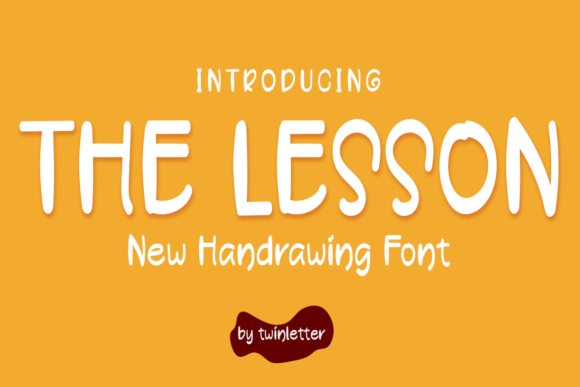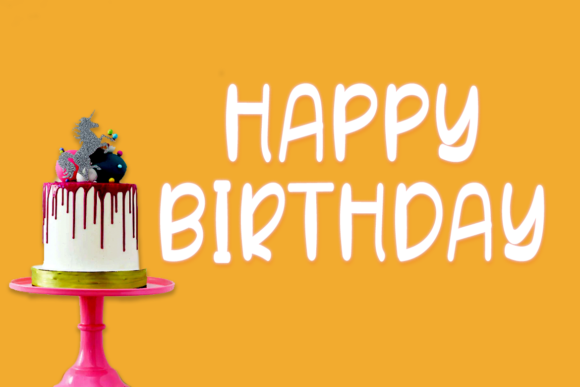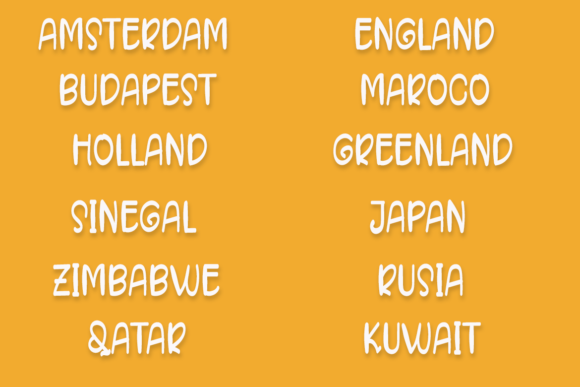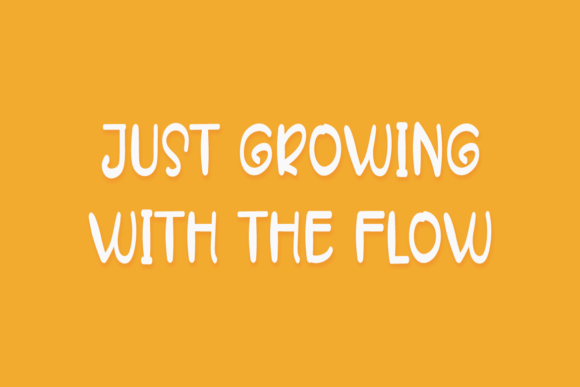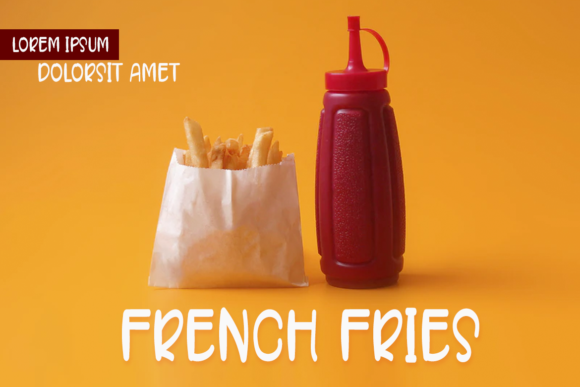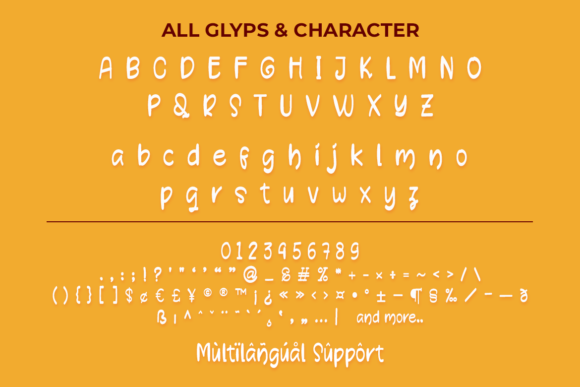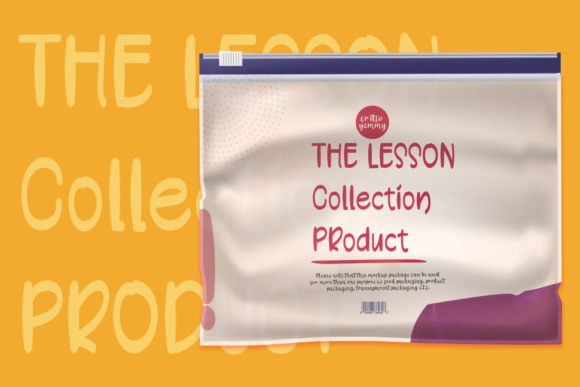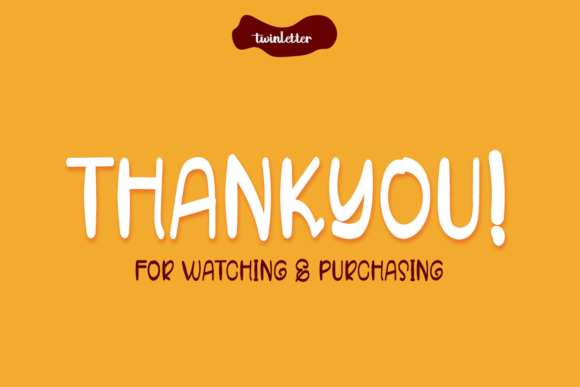
The Lesson Font
About The Lesson Font
The Lesson is a timeless handwritten font. It features a modern and relaxed feel that will take your designs to the next level. The Lesson is the perfect fit for all of your logos, branding, social media, and crafty DIY projects.